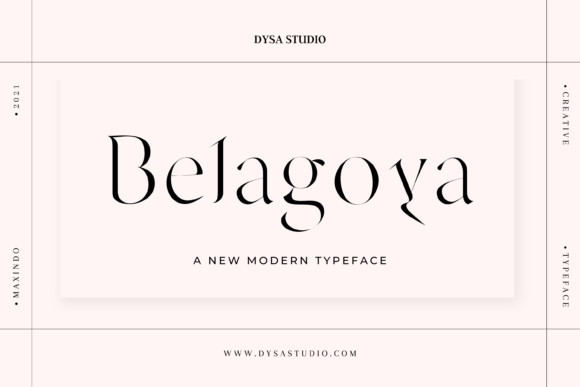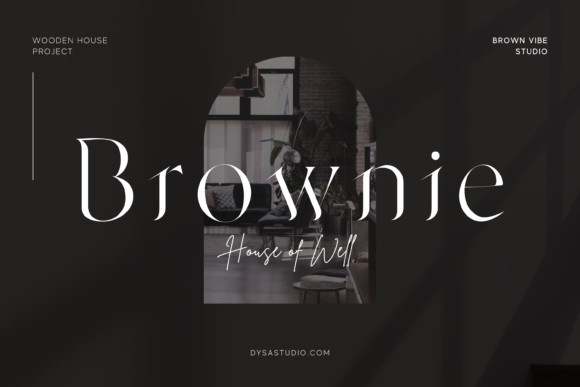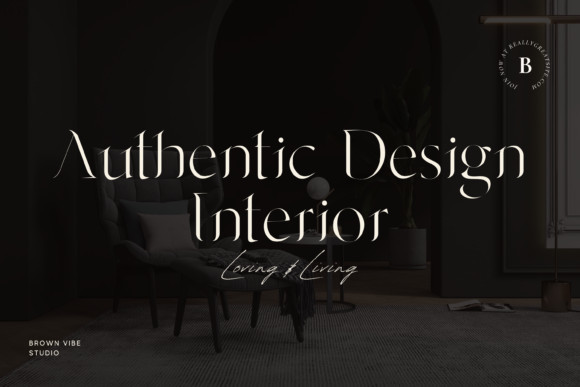
Belagoya Font
Belagoya is an elegant and delicate serif font. Fall for its ravishing style and use it to create gorgeous wedding invitations, beautiful stationary art, eye-catching social media posts, and much more!